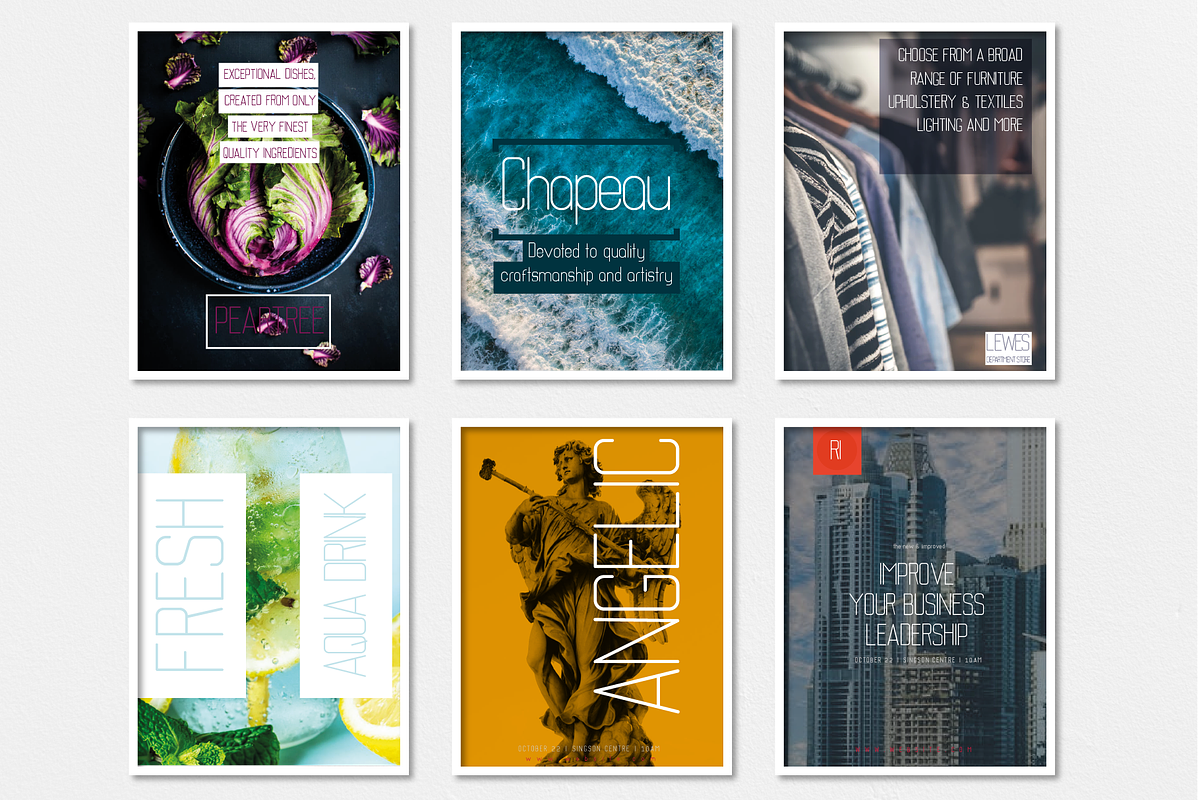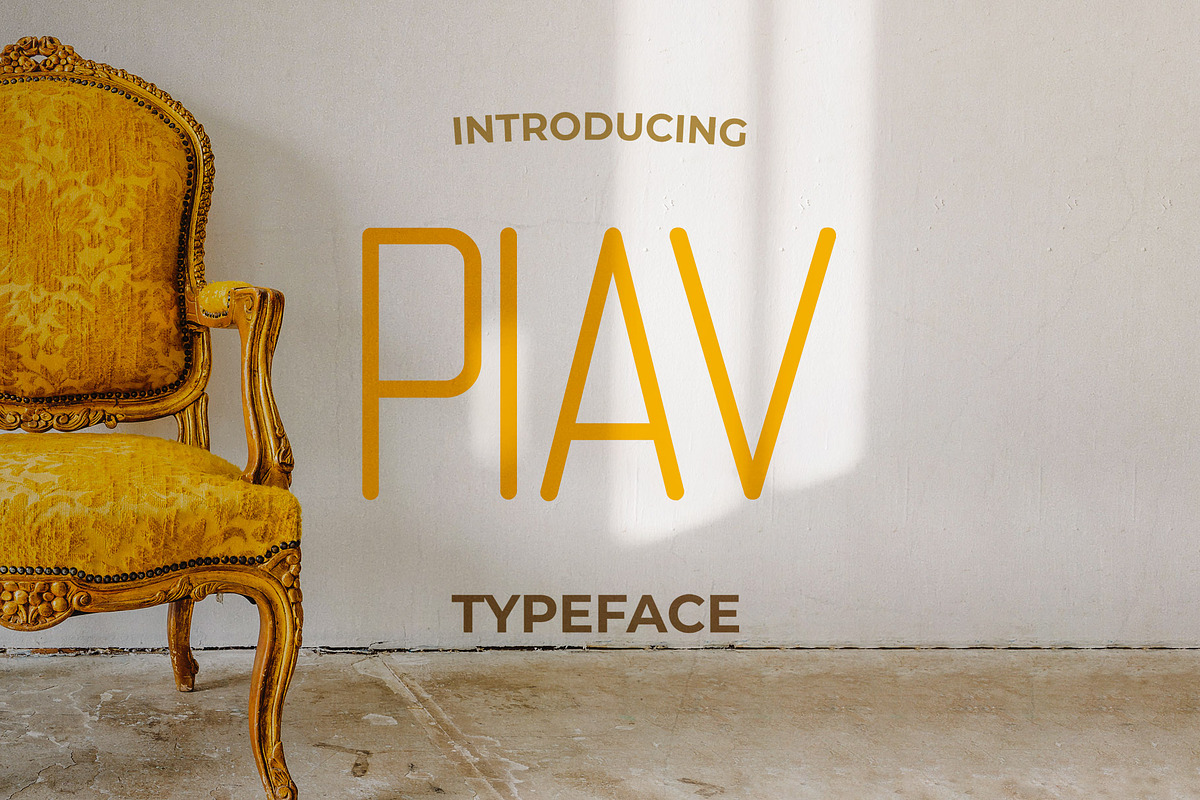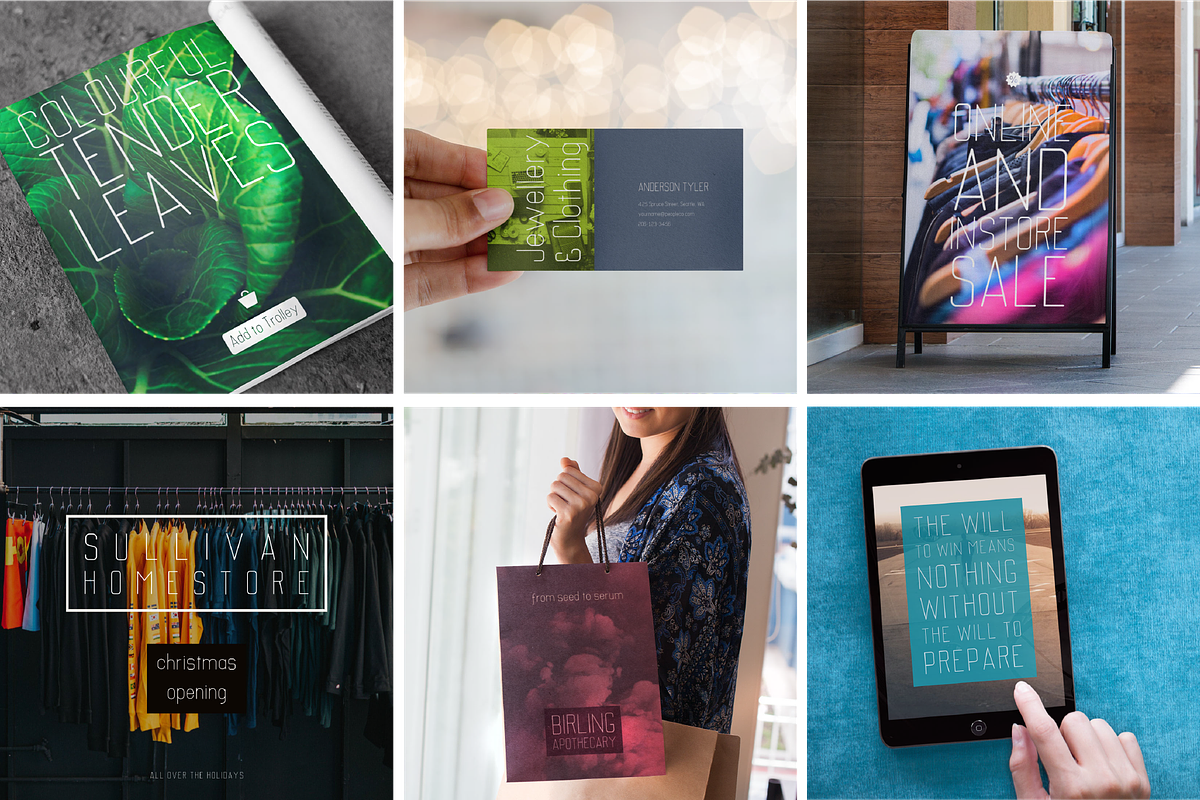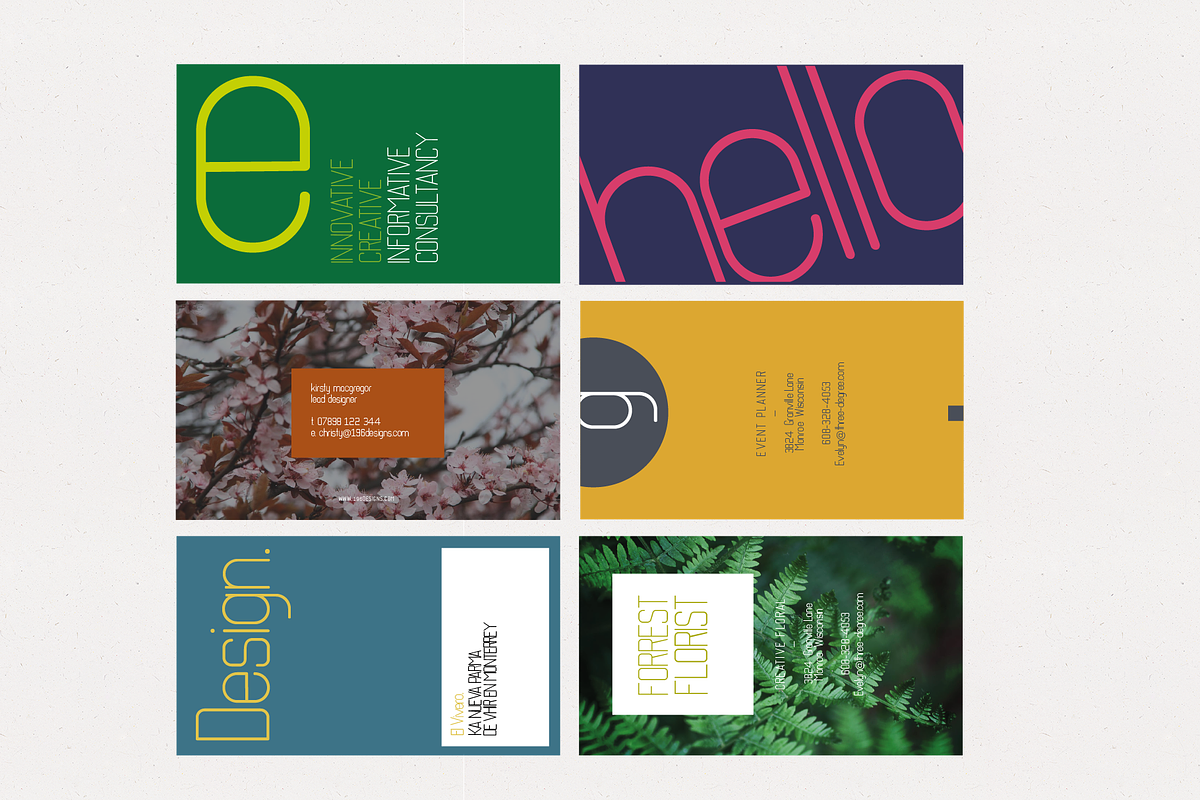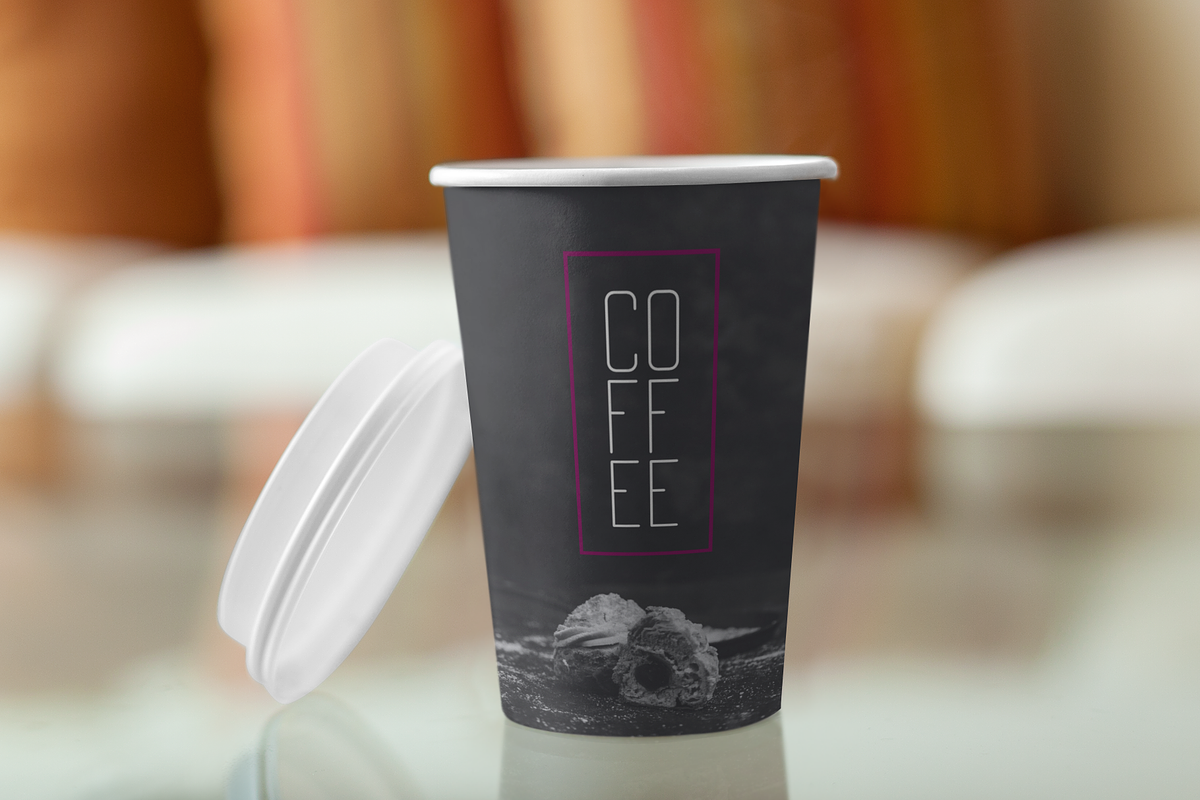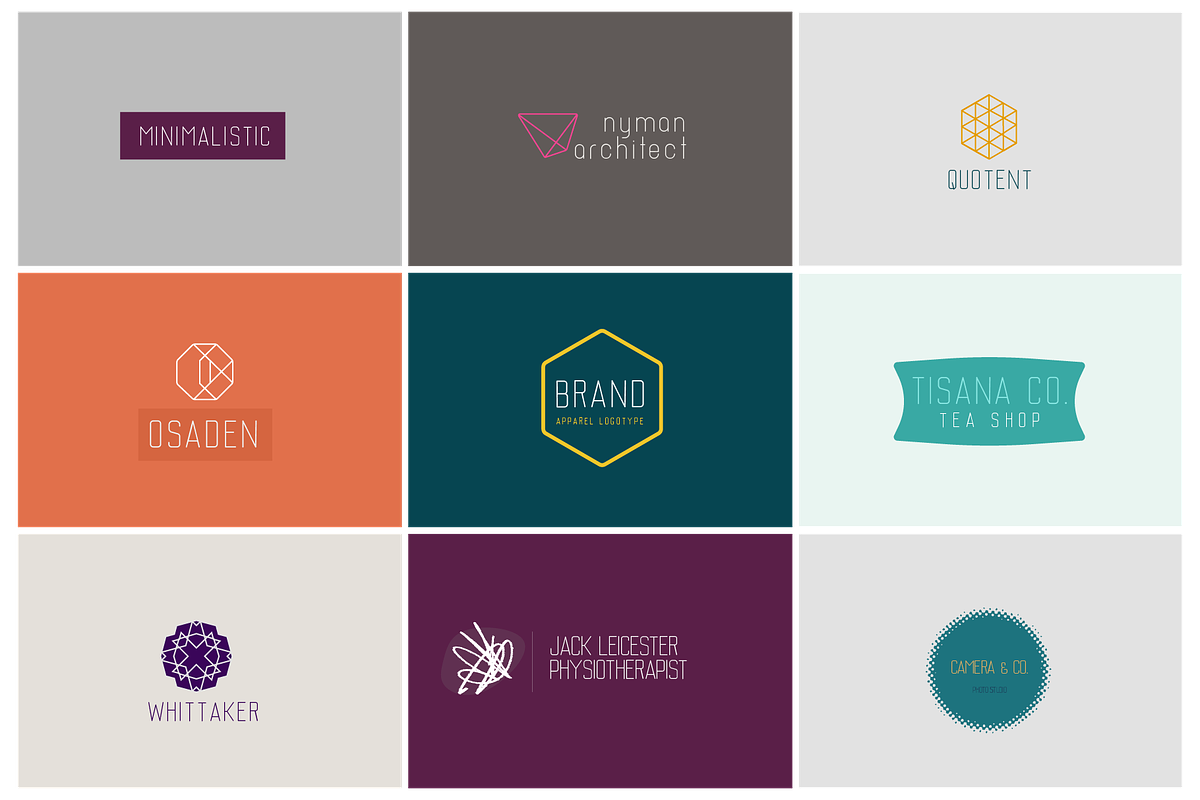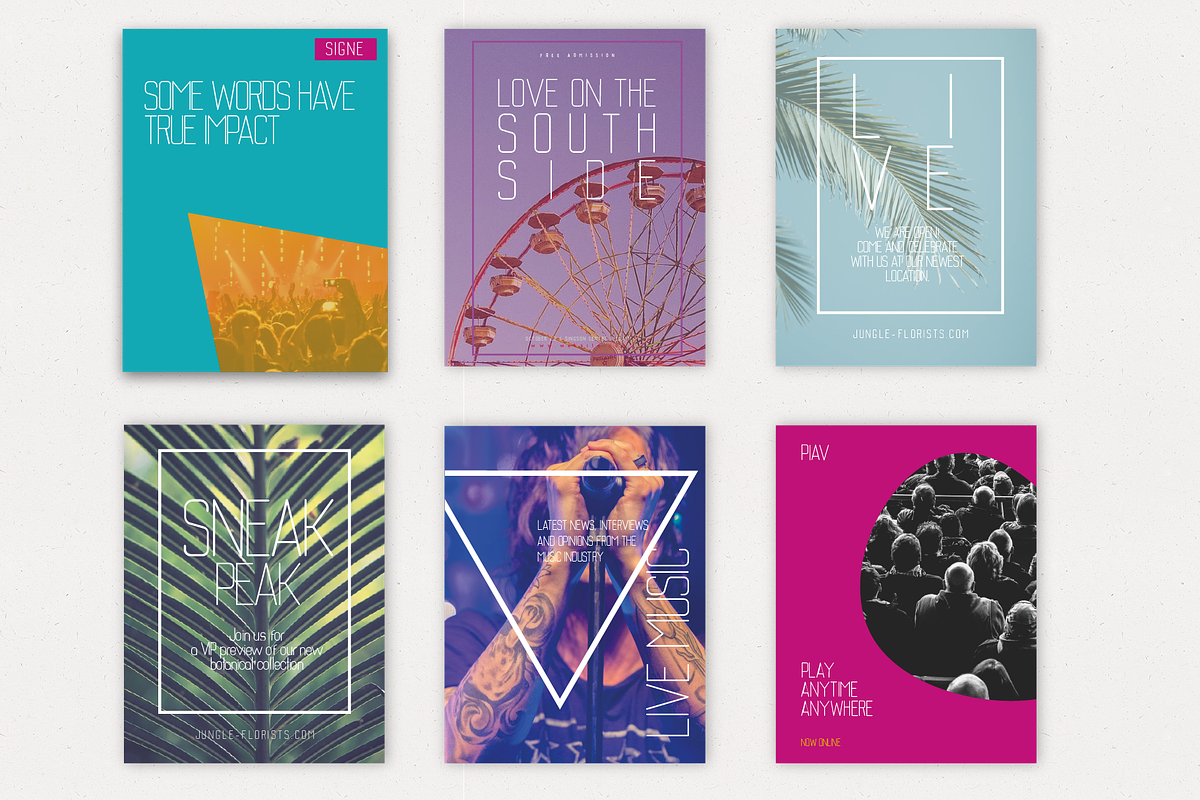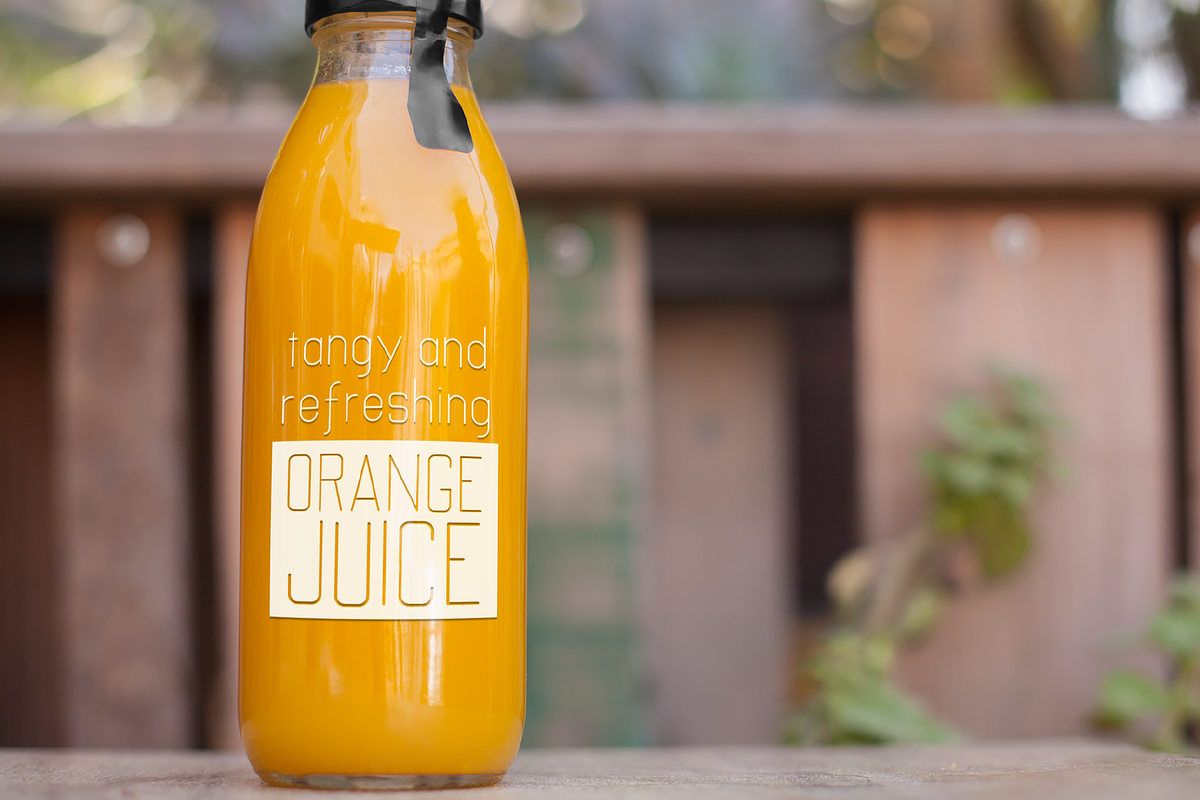
Piav Font | Condensed Round
The Piav Typeface, a modern sans serif with a geometric touch, a single weight font, designed specifically for larger display, headline and banner use. The single stroke weight font and simplicity of the letterforms are useful for communicating clean, modern style when your tone of voice is simple thinking, transparent and honest. Designed with powerful OpenType features in mind, including extended language support, and more.
Excellent for headlines, captions, Logos, Identities and at large sizes, it also efficiently works for web, signage, corporate as well as for editorial design.
Ideally suited for advertising and packaging, editorial and publishing, logo, branding and creative industries, poster and billboards, small text, wayfinding and signage as well as web and screen design. Also included in this pack is a range of editable designed templates using the font.
This package includes more than just the font. We have created over 30 editable designs made with Piav. This pack includes a number of editable templates for you to start your design with the font, including Logo designs, Business Card Designs, Poster and Flyer Designs.